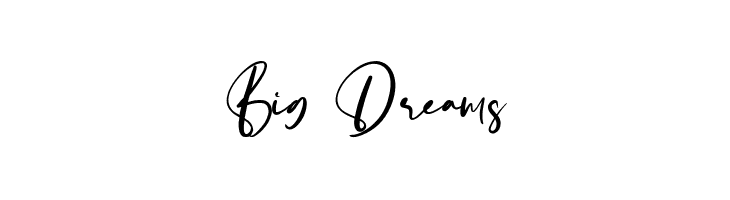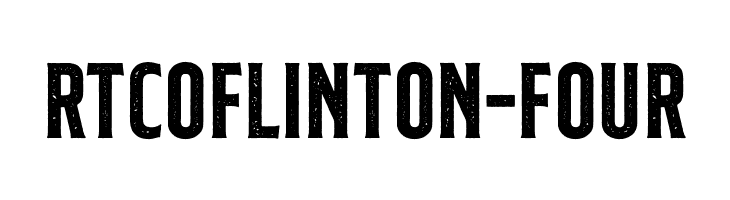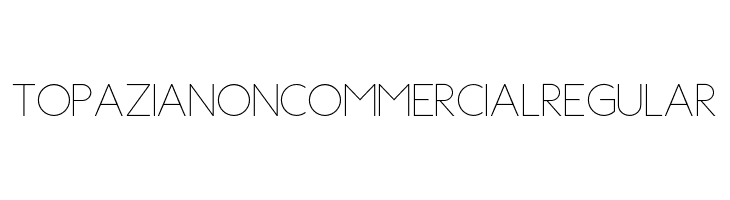
A modern sans-serif font with clean lines and excellent readability.
A modern sans-serif font with a rounded, approachable design and excellent readability.
A modern, outlined font with geometric and balanced characters.
A rough, hand-drawn font with bold, textured characters.
A bold, dynamic script font with fluid, cursive strokes and a lively appearance.
A bold, textured script font with a hand-drawn, vintage feel.
A flowing, cursive script font with elegant, connected characters.
An elegant script font with flowing, sophisticated lines.
A bold, gothic-inspired font with sharp, jagged edges and dynamic styling.
A bold, graffiti-inspired font with dynamic, angular strokes and a rebellious flair.